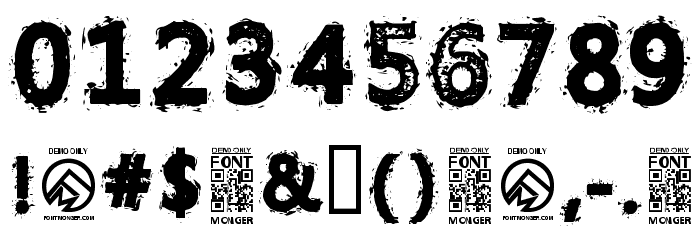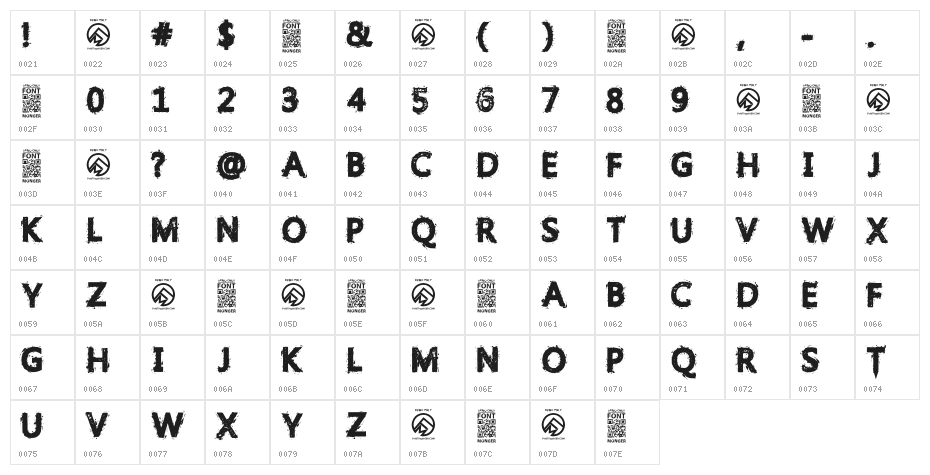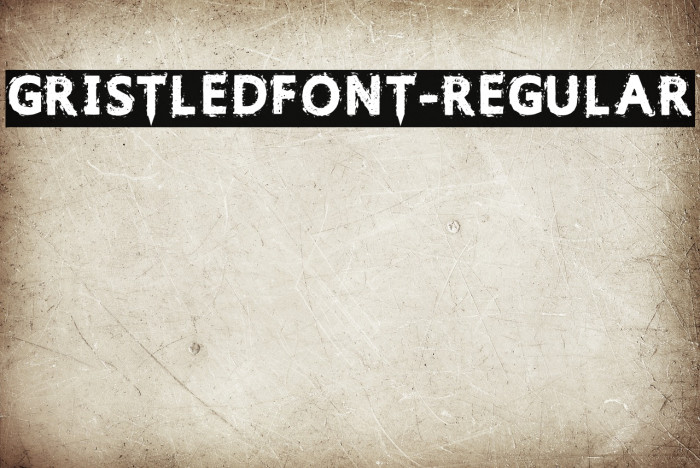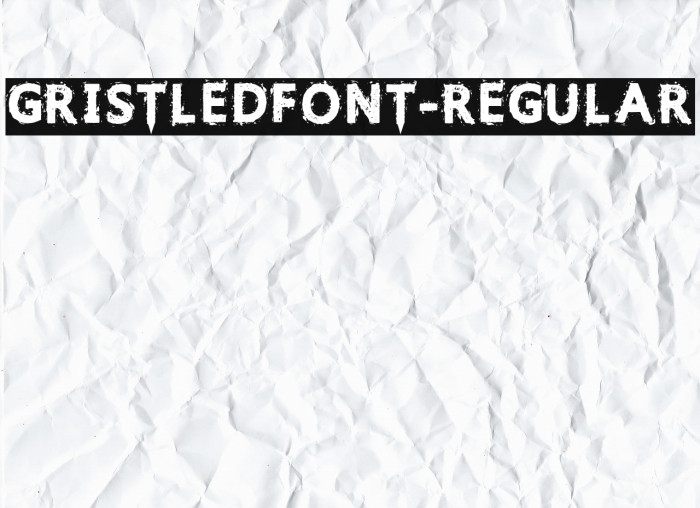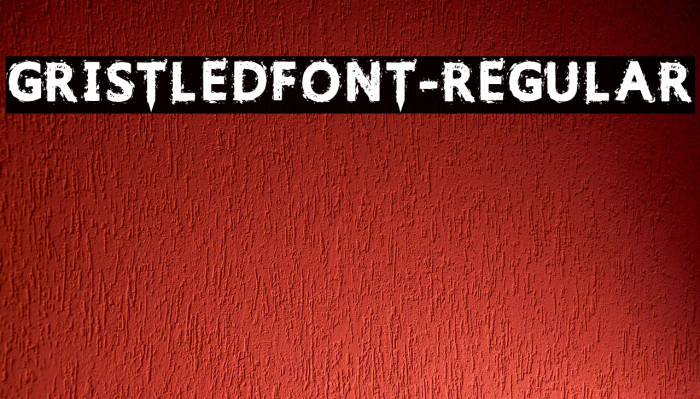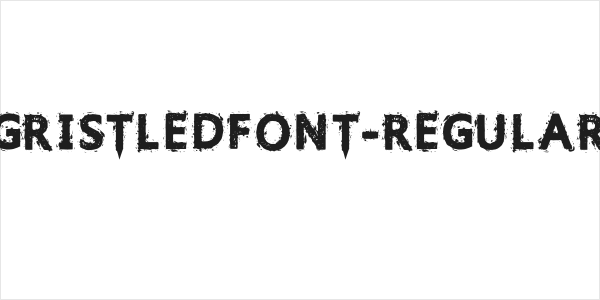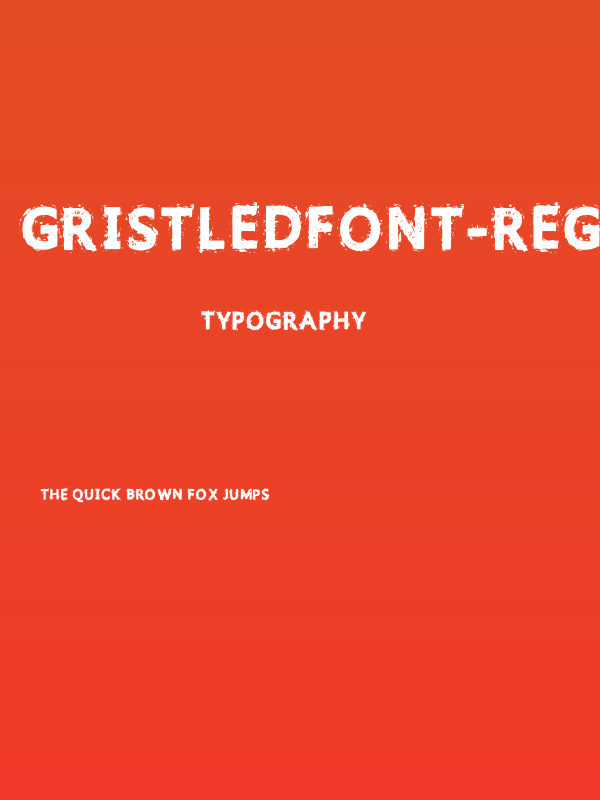
GristledFont-Regular Font
GristledFont-Regular Description
This font features a rugged, distressed appearance with a grunge texture that gives it a worn and weathered look. The characters have irregular edges and a rough surface, creating a sense of age and authenticity. Despite its distressed style, the font maintains good legibility, making it suitable for impactful designs. The uppercase and lowercase letters, along with numbers and special characters, all share this unique, textured style, adding a bold and edgy feel to any project.
| Proposed Projects | Ideal for projects that require a bold, edgy look such as posters, album covers, and branding for alternative or vintage-themed products. |